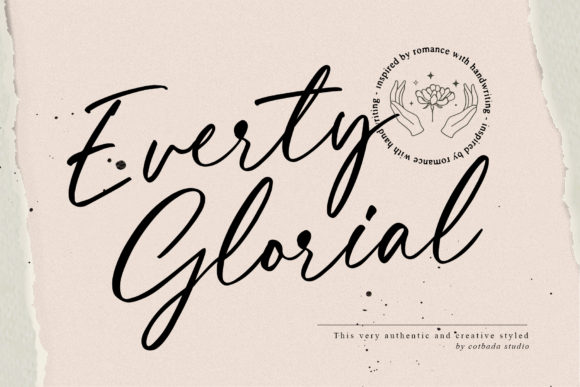
Unleash the beauty of handwritten elegance with the captivating Everty Glorial Font Script. Created by the talented Cotbada Studio, this font is a true masterpiece, meticulously crafted to bring your creative visions to life. With its genuine, fresh, and modern style, Everty Glorial Font Script is the perfect font for those seeking a touch of sophistication and charm in their designs.
Experience the joy of writing with this exquisite font, designed to evoke the natural flow and expressiveness of handwritten letters. Its carefully crafted curves and delicate strokes add a personal touch to every project, whether it's a heartfelt letter, a stunning invitation, or an eye-catching social media post.
Embrace the versatility of the Everty Glorial Font Script and watch your creative projects flourish. Its graceful lines and elegant characters make it the perfect choice for a wide range of applications, from logos and branding to website designs and social media graphics. Unleash your creativity and let your designs shine with the timeless beauty of Everty Glorial Font Script.